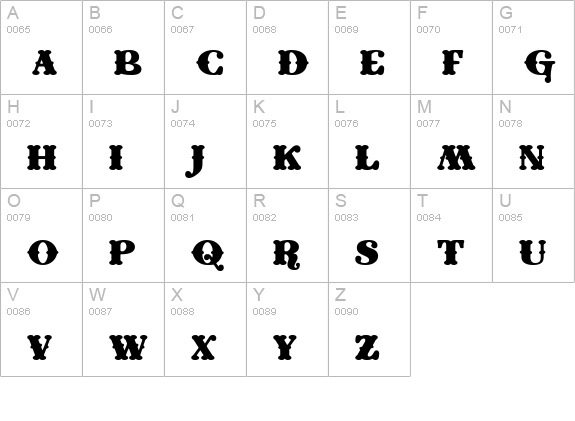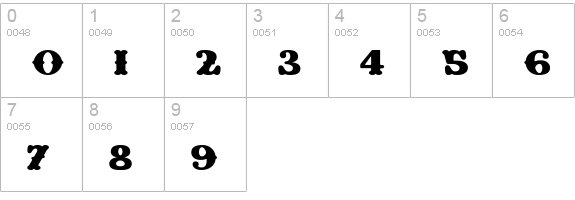
Coney Island Font Details
Coney Island font is a charming and playful typeface that exudes a sense of fun and nostalgia. With its rounded edges and whimsical design, this font is perfect for adding a touch of whimsy to your projects. Whether you're creating invitations, posters, or branding materials, Coney Island font is sure to make a statement. Best of all, Coney Island font is completely free to download at FontsMarket.com. This means you can add this delightful font to your collection without having to spend a dime. So go ahead and give your designs a touch of vintage flair with Coney Island font today!